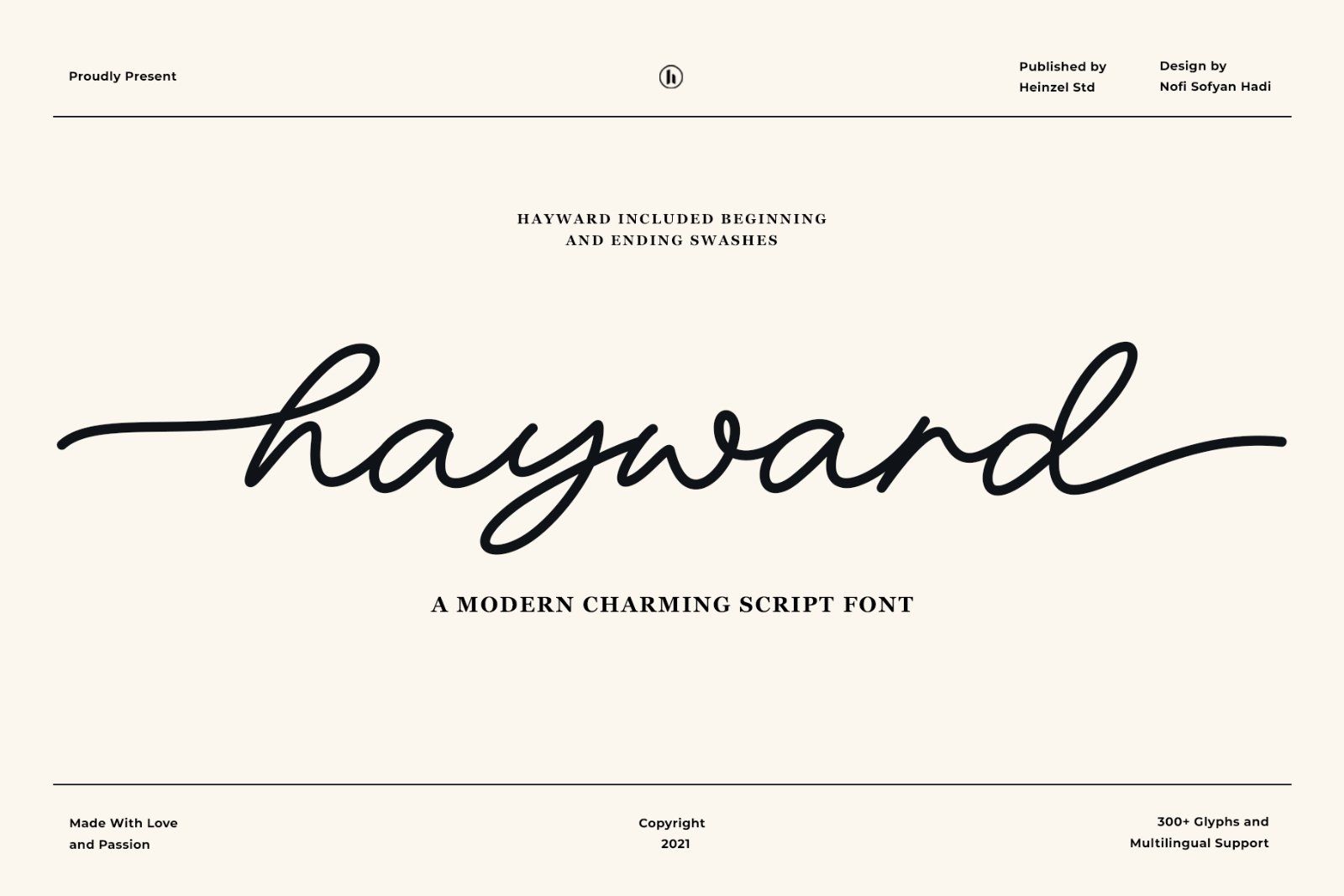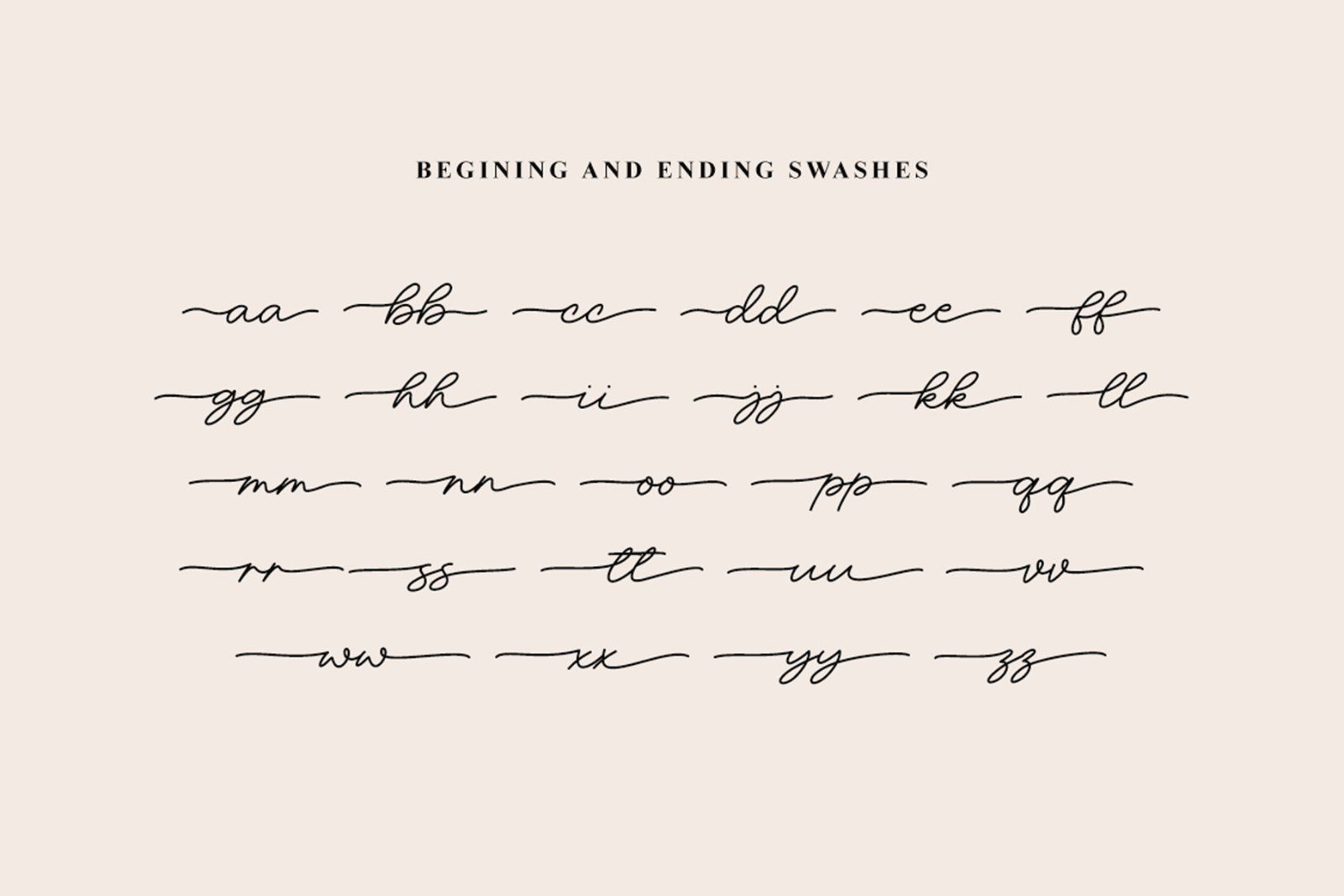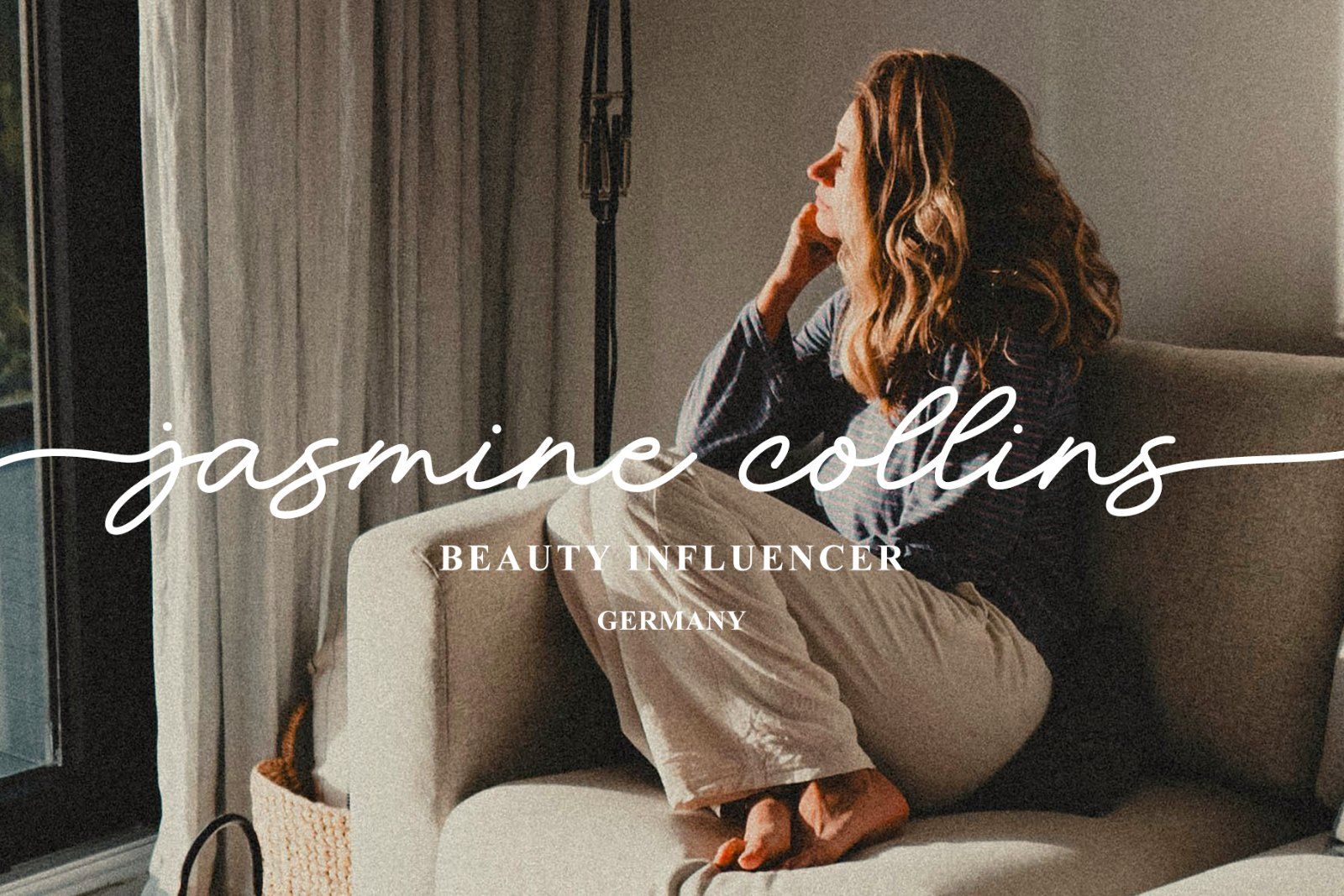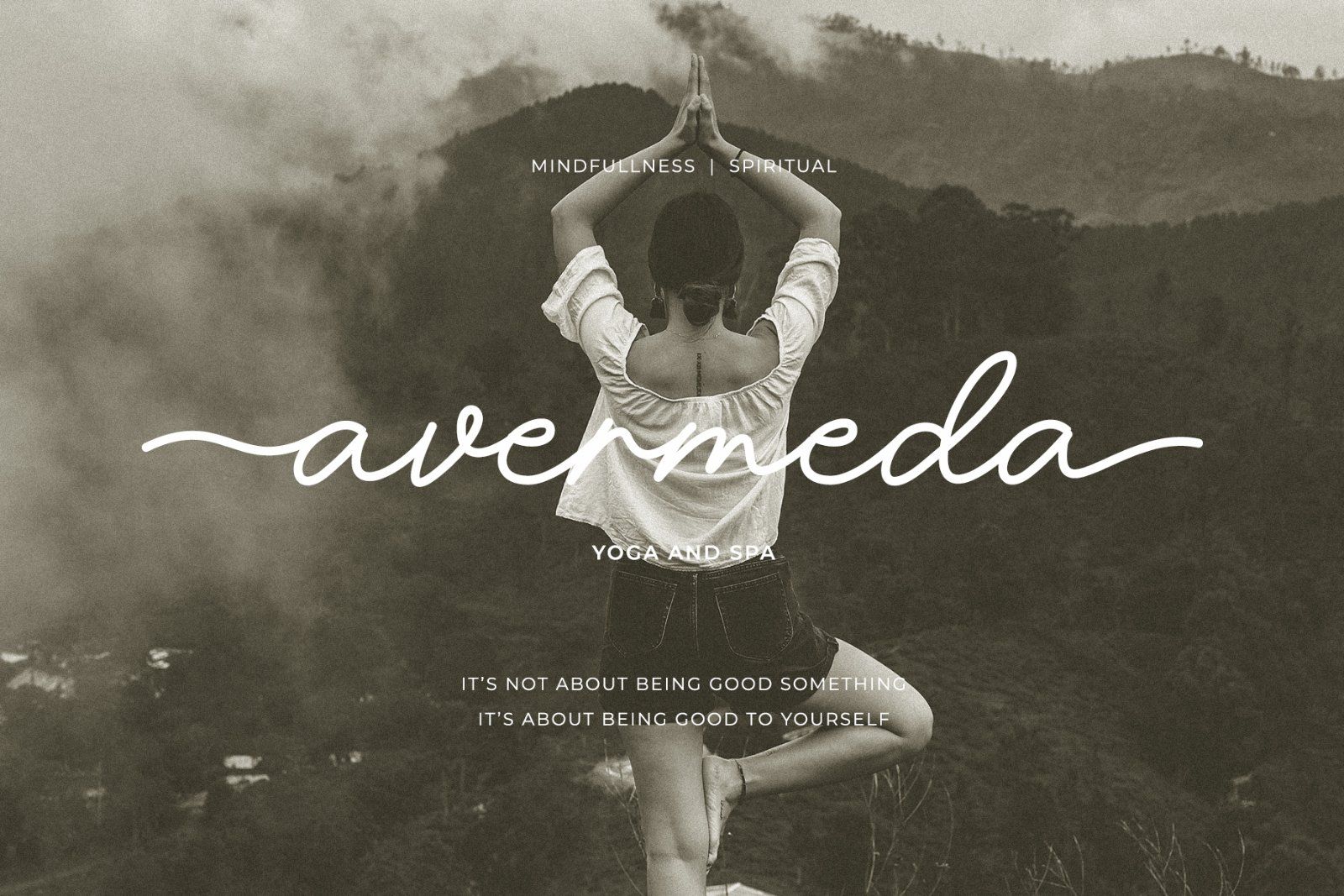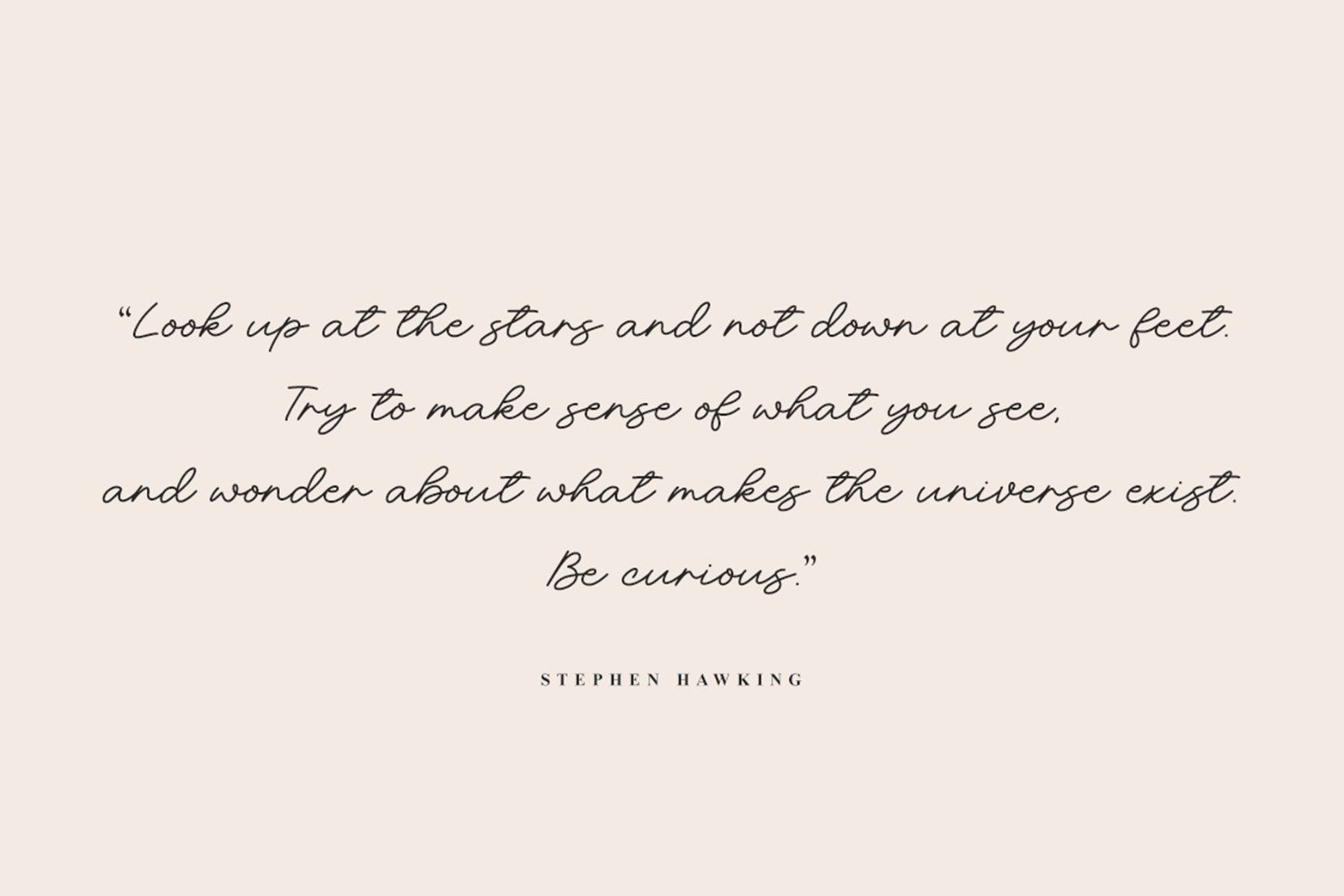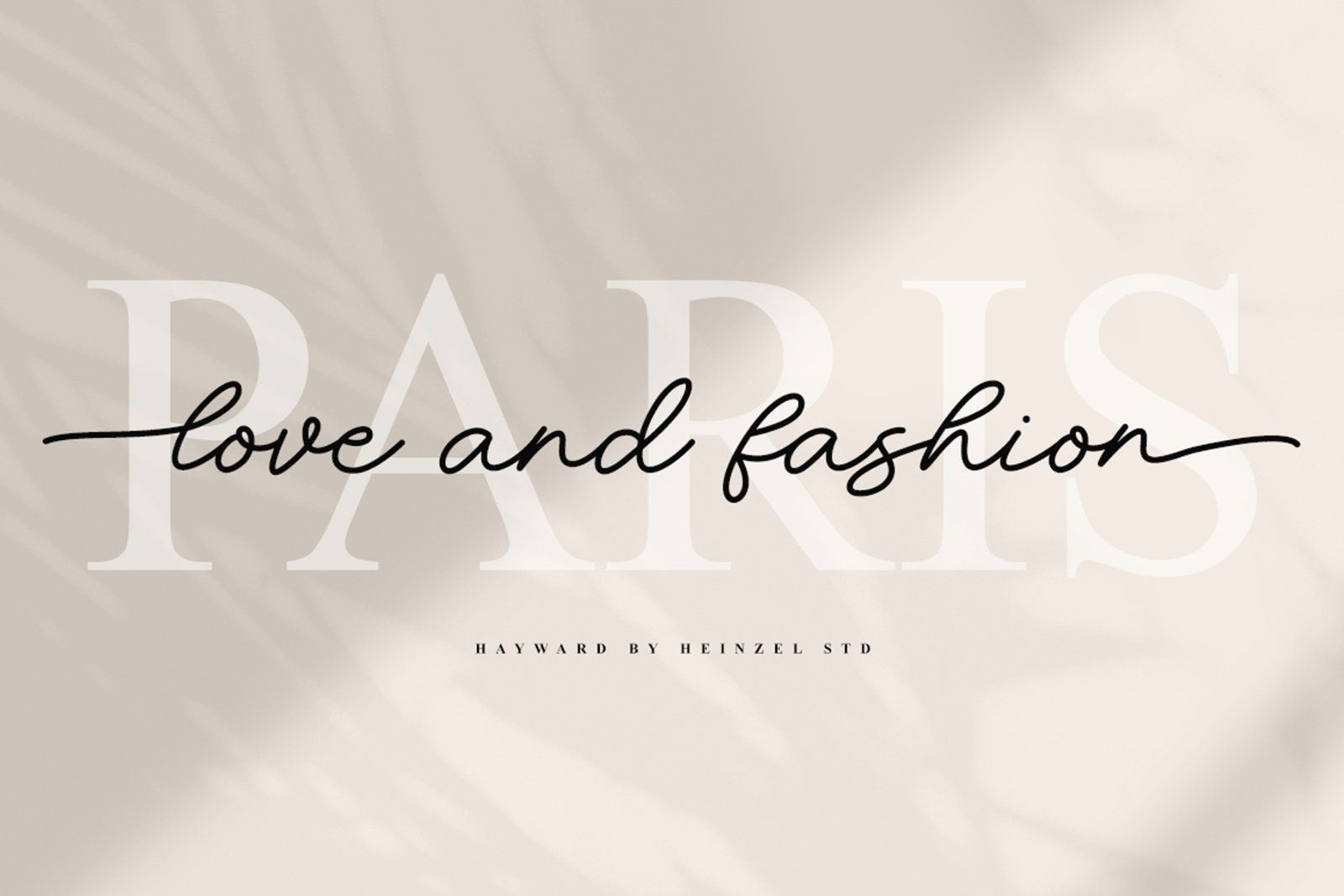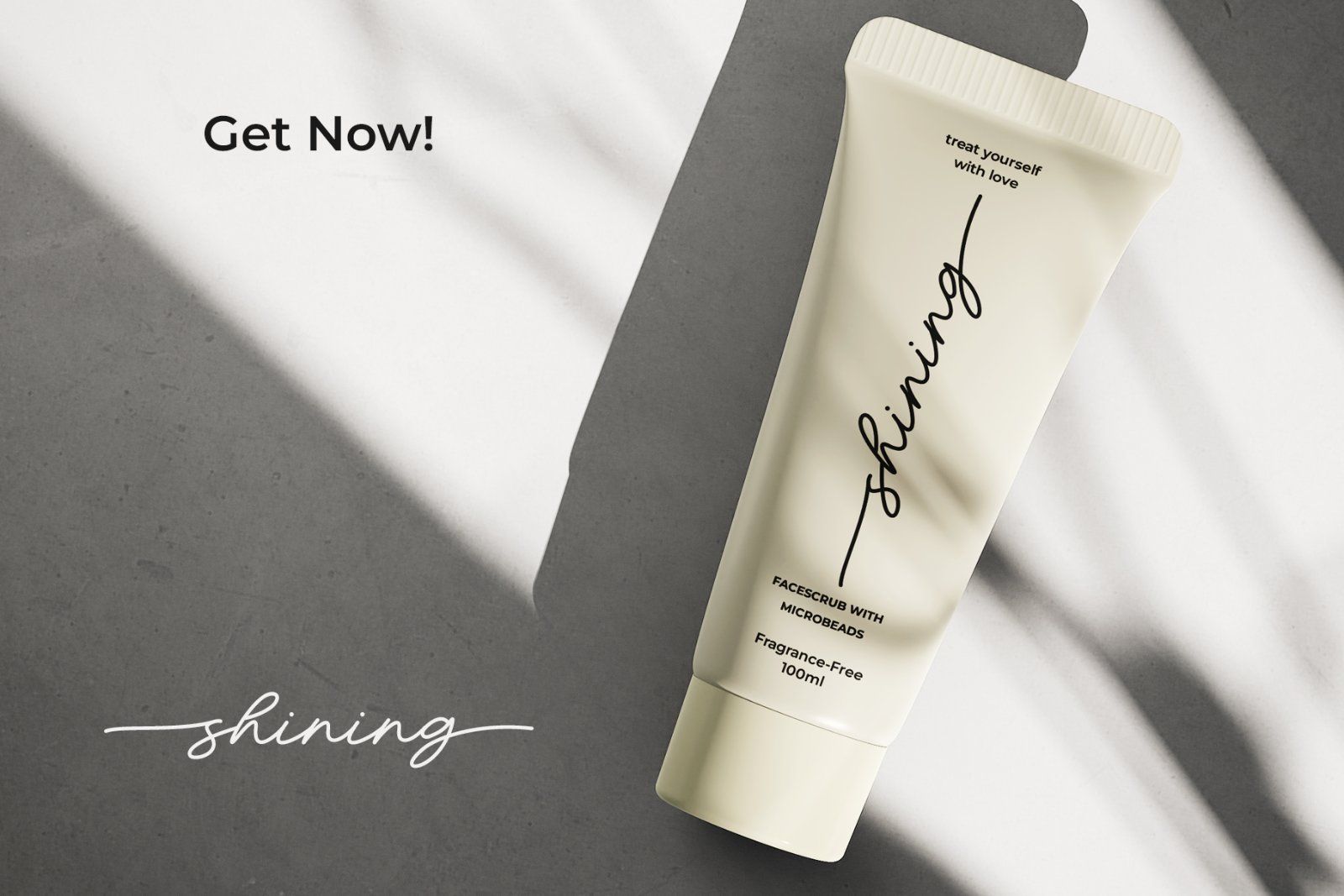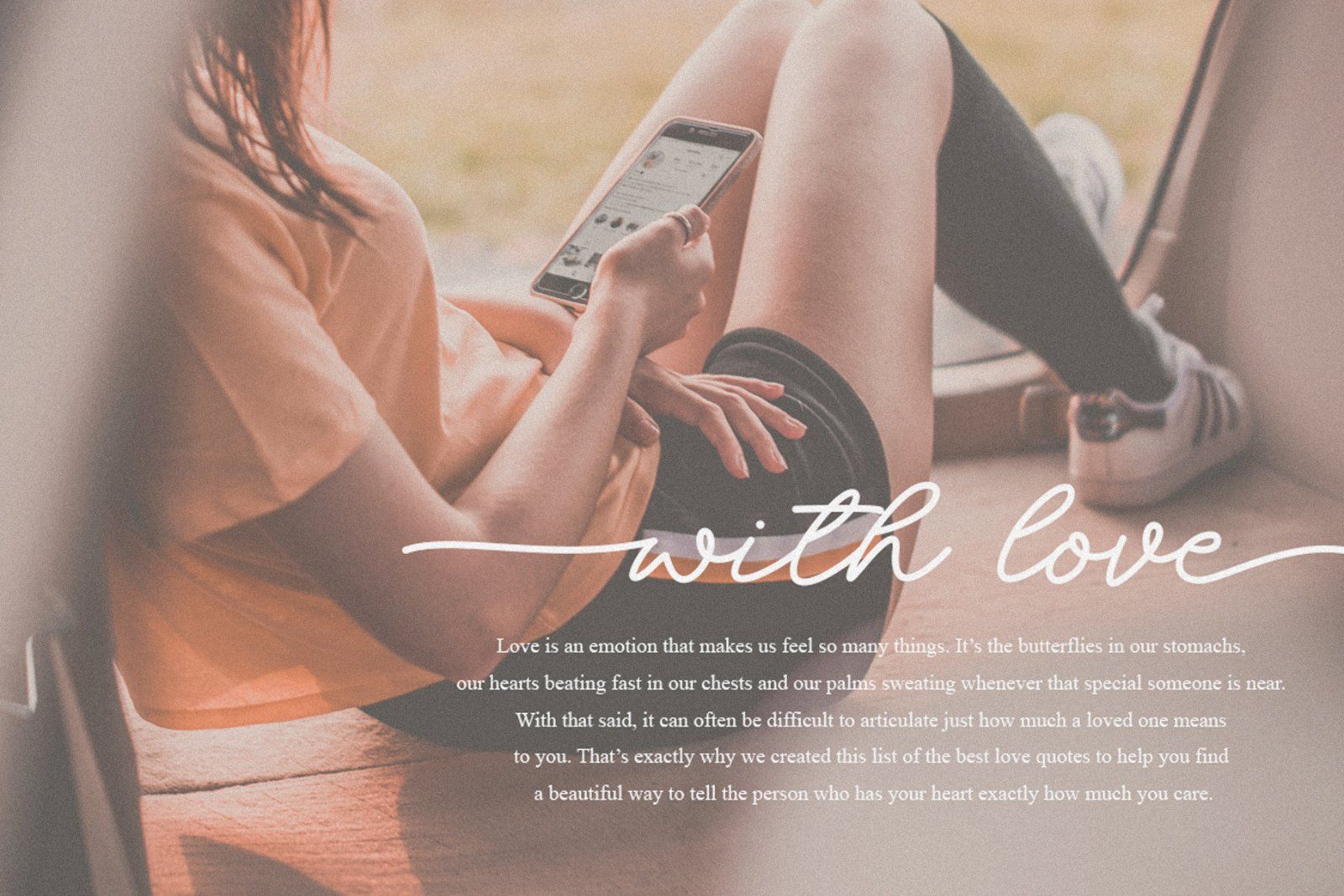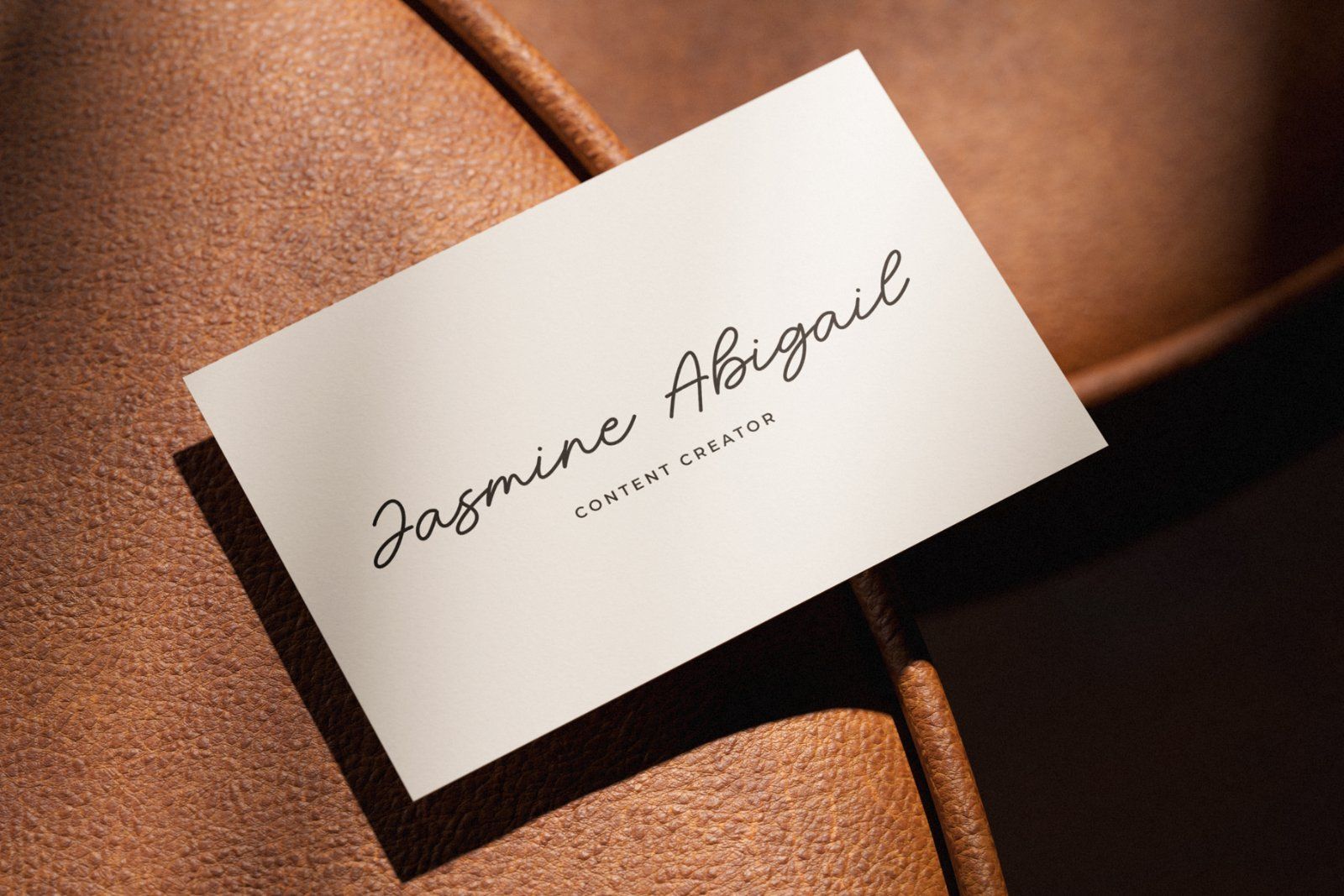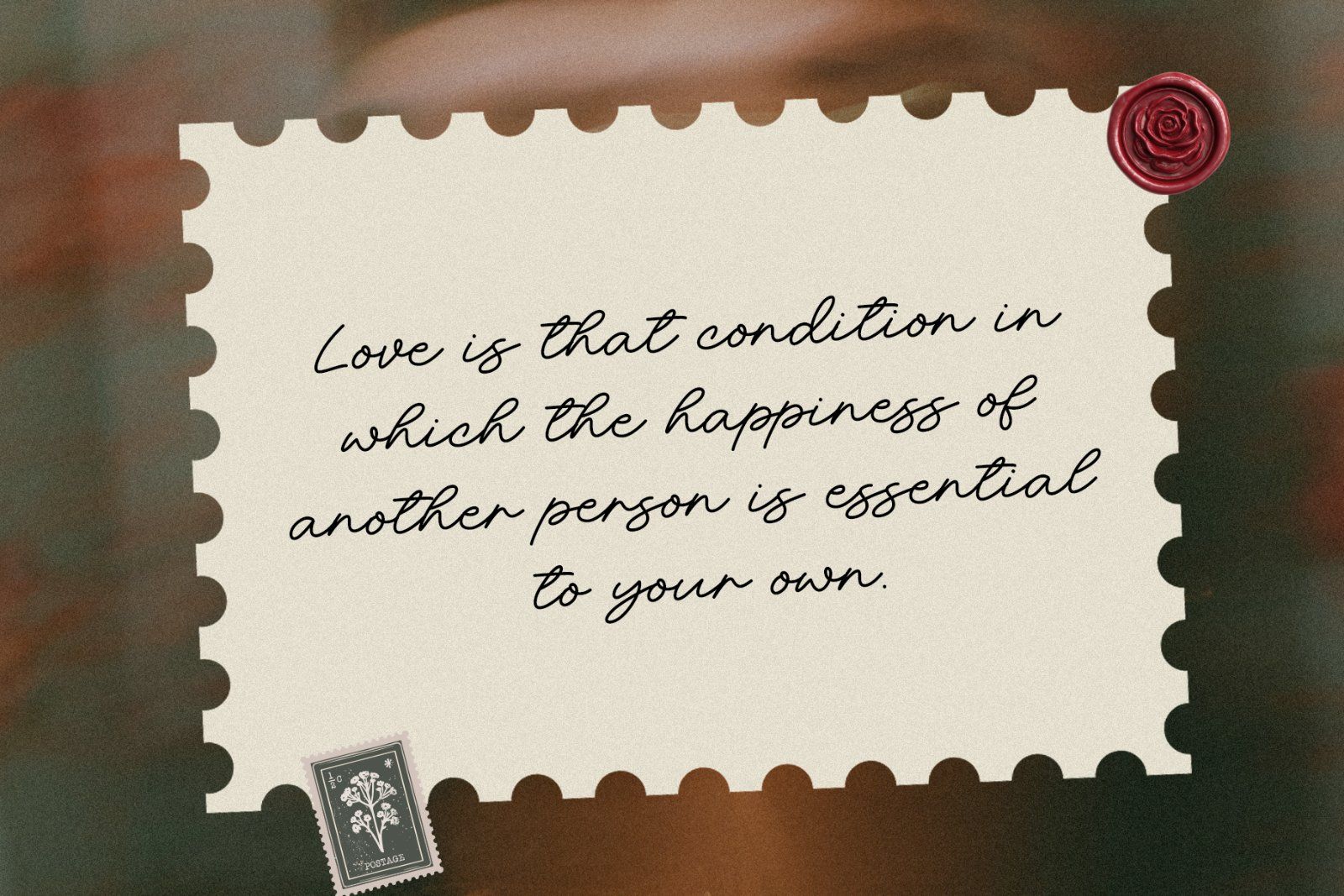
Hayward Font – Modern Charming Script Font with Elegant Swashes
Hayward is a modern charming script font designed to bring a stylish, personal, and sophisticated handwritten feel to your creative projects. Featuring smooth flowing strokes, natural letter connections, and elegant beginning and ending swashes, Hayward creates the authentic look of a handwritten signature.
With 300+ glyphs and multilingual support, Hayward offers flexibility for branding, logos, wedding stationery, social media graphics, packaging, apparel, photography, and editorial designs. Its expressive yet clean appearance makes it an excellent choice for creating memorable and elegant visual identities.
Perfect for logos, signatures, branding, invitations, quotes, packaging, fashion designs, product labels, social media posts, and personal branding, Hayward adds a refined handwritten touch while maintaining a modern and professional character.